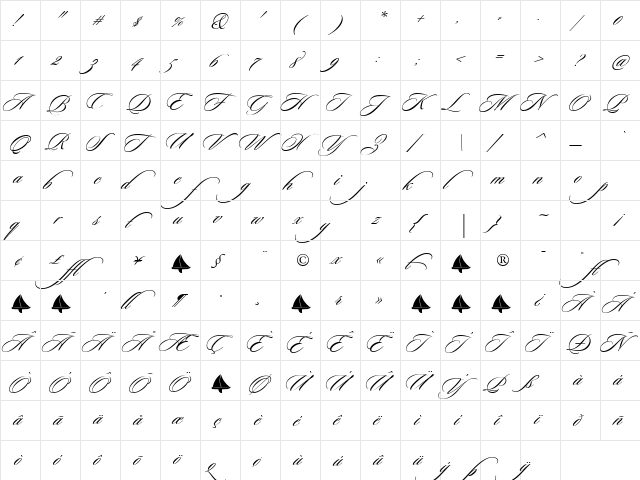
Sloop ScriptThree Regular
Design Context for Sloop ScriptThree Typeface
Sloop ScriptThree brings a calligraphic fluidity to the page — its connecting strokes and expressive curves give it an unmistakably human quality.
Font Pairing: Combine Sloop ScriptThree with a simple geometric sans for maximum contrast — the tension between flowing curves and clean structure is a classic typographic pairing.
Pro Tip: Use Sloop ScriptThree for short runs of text — names, titles, or taglines. Extended body copy in script faces tires the eye quickly.